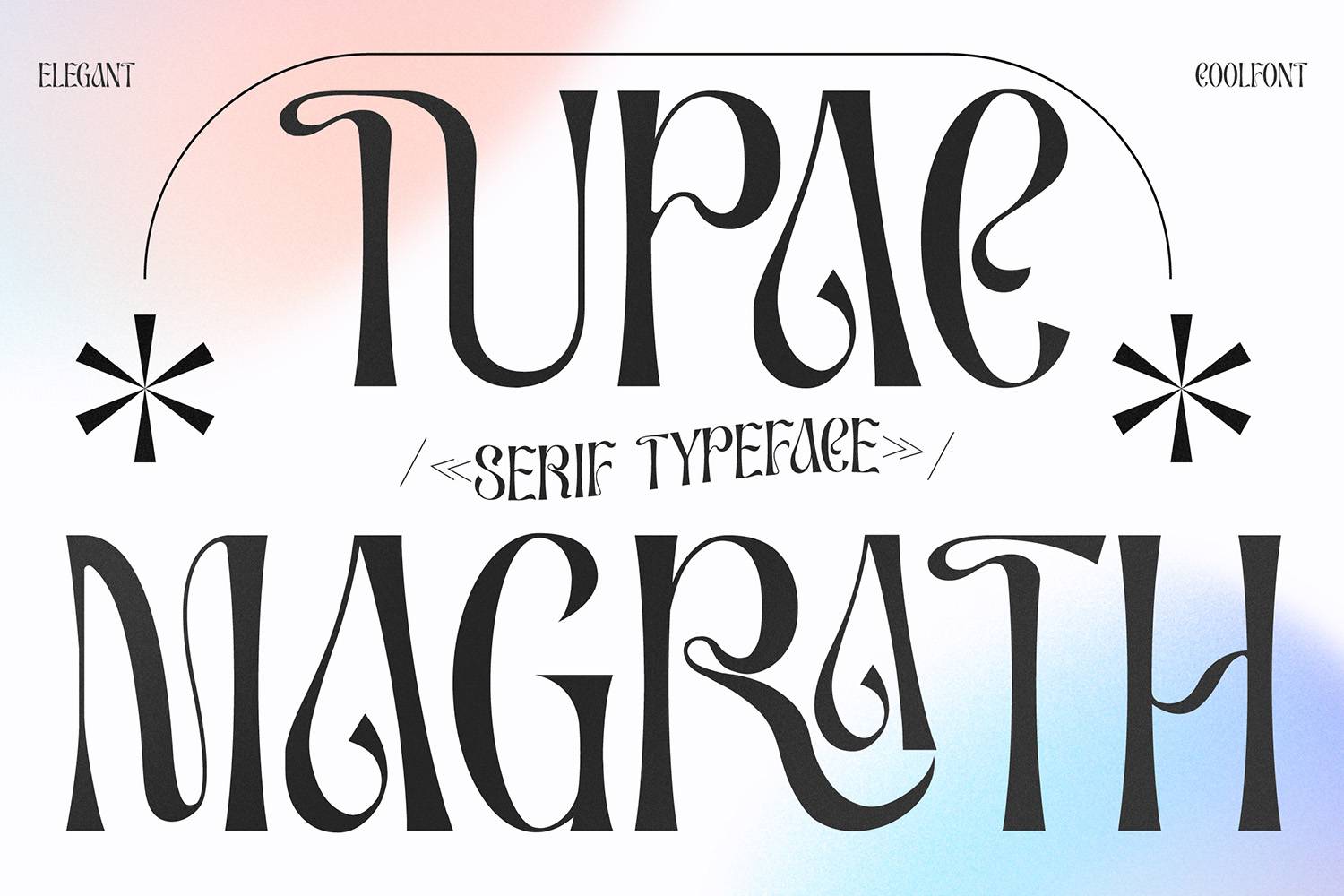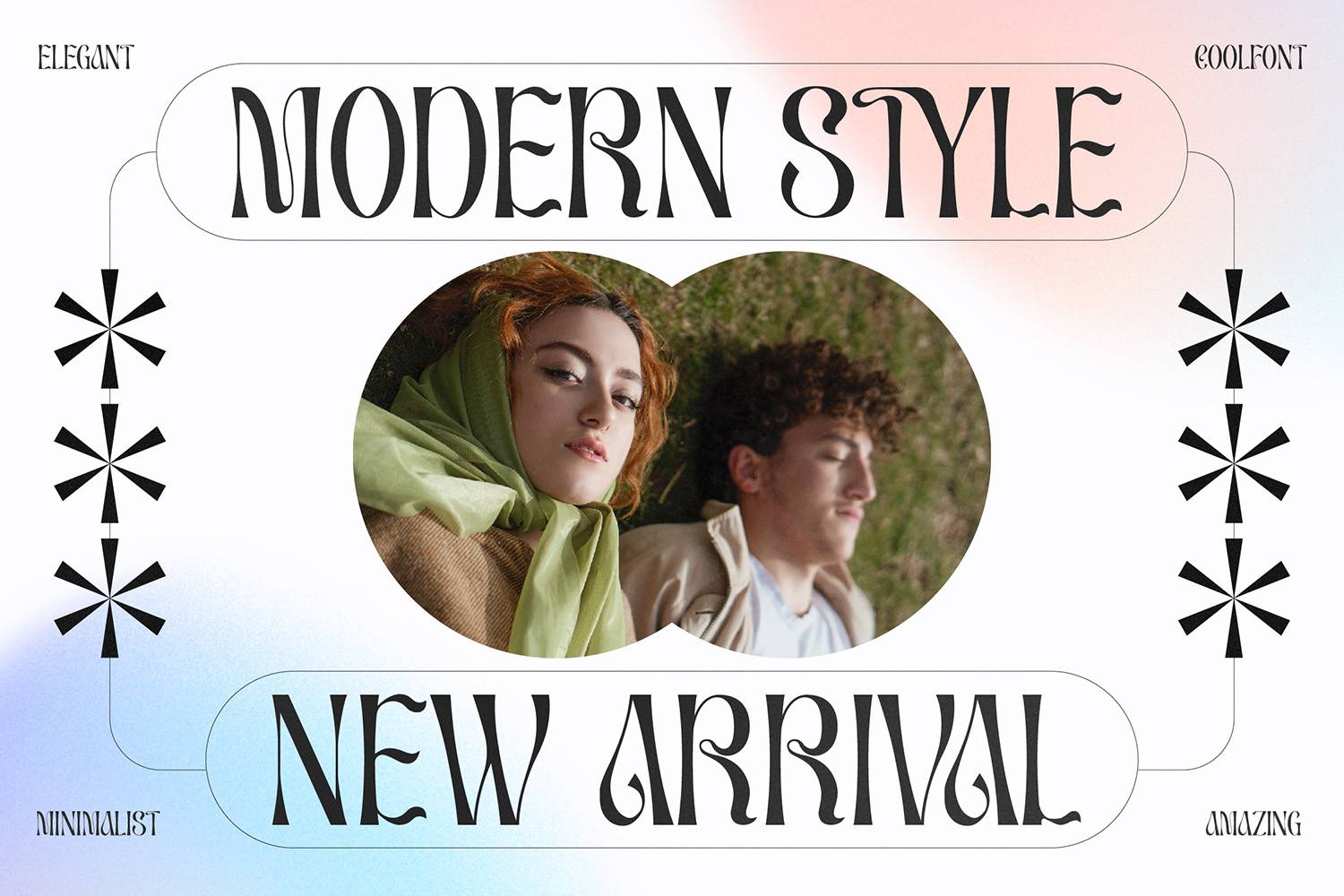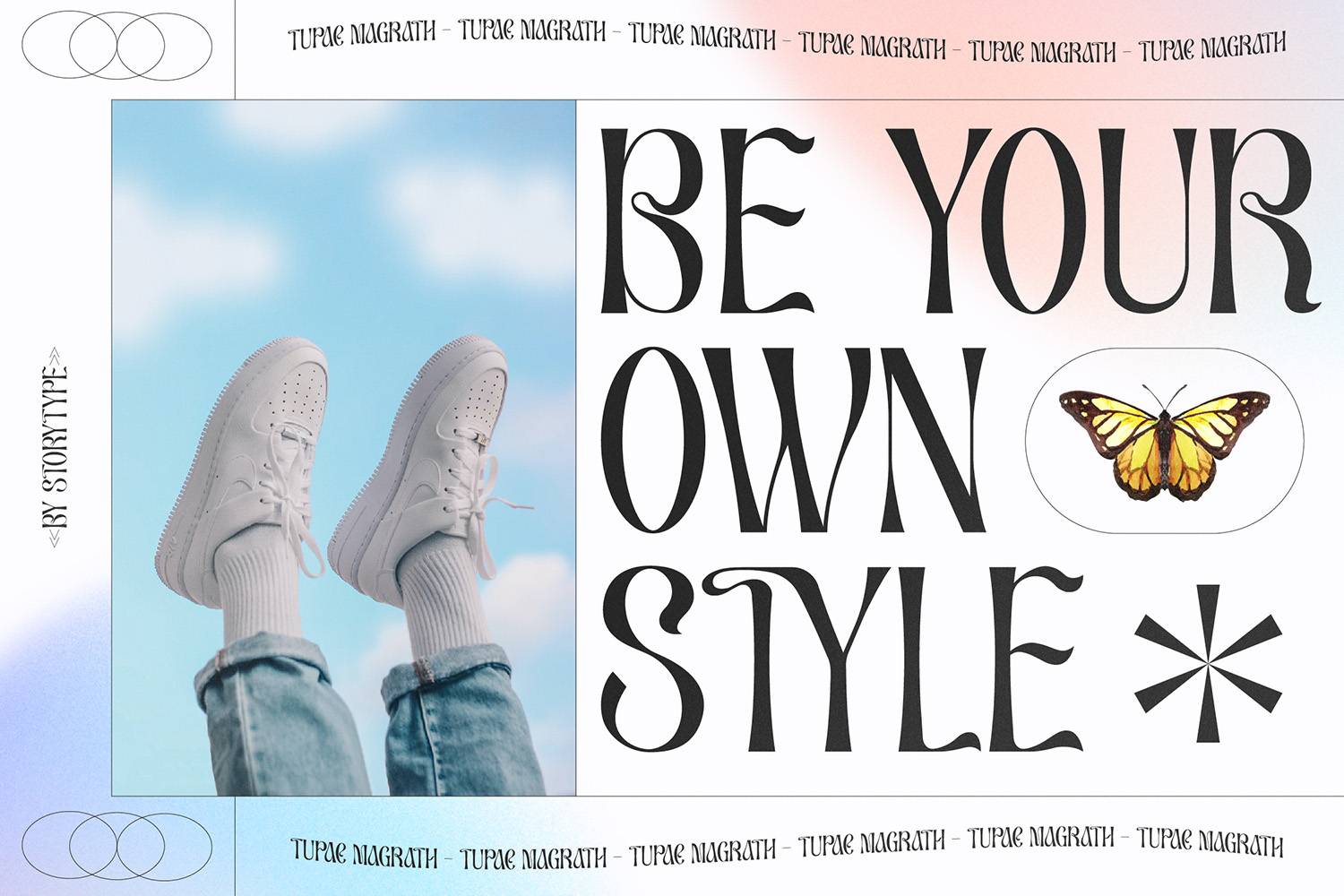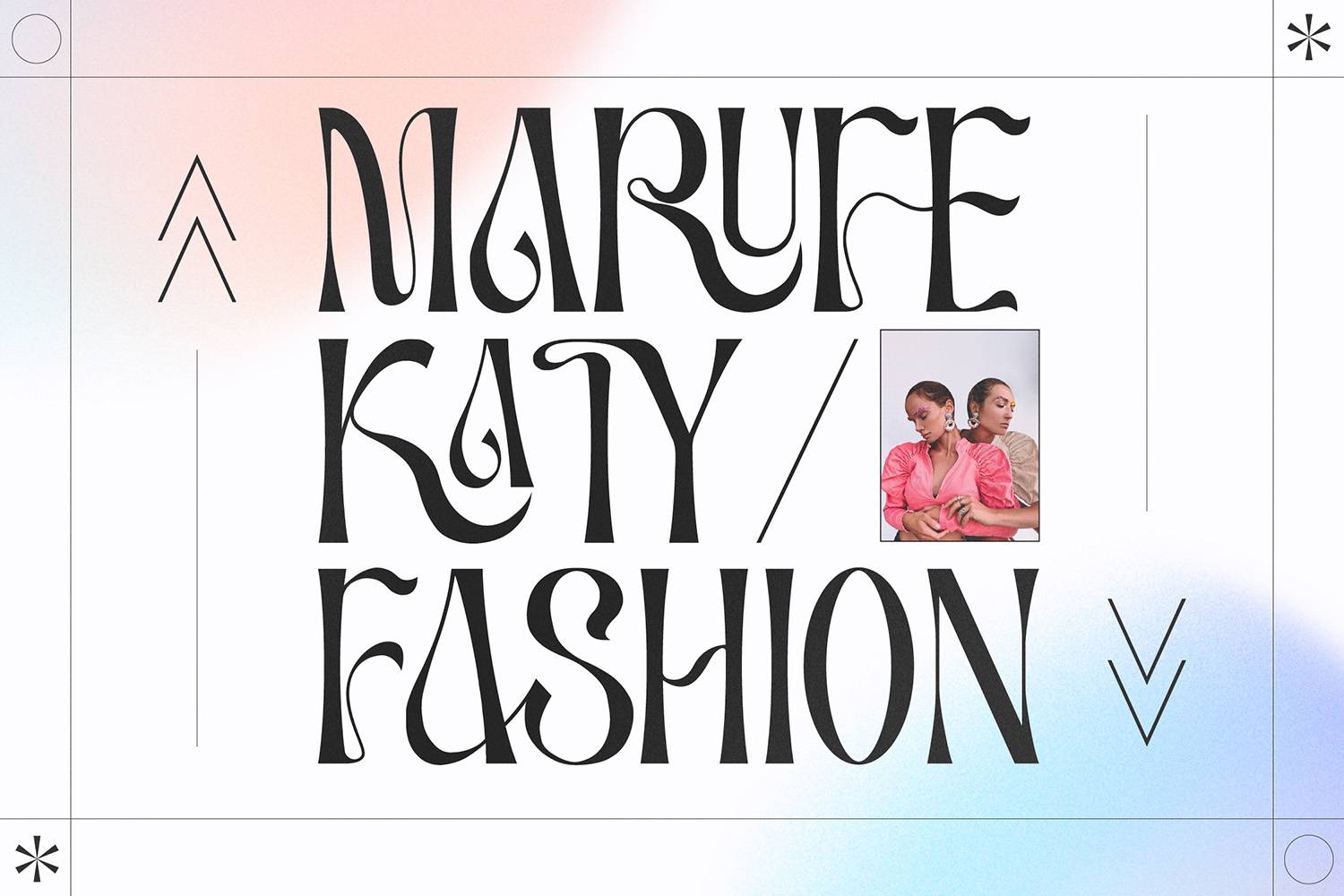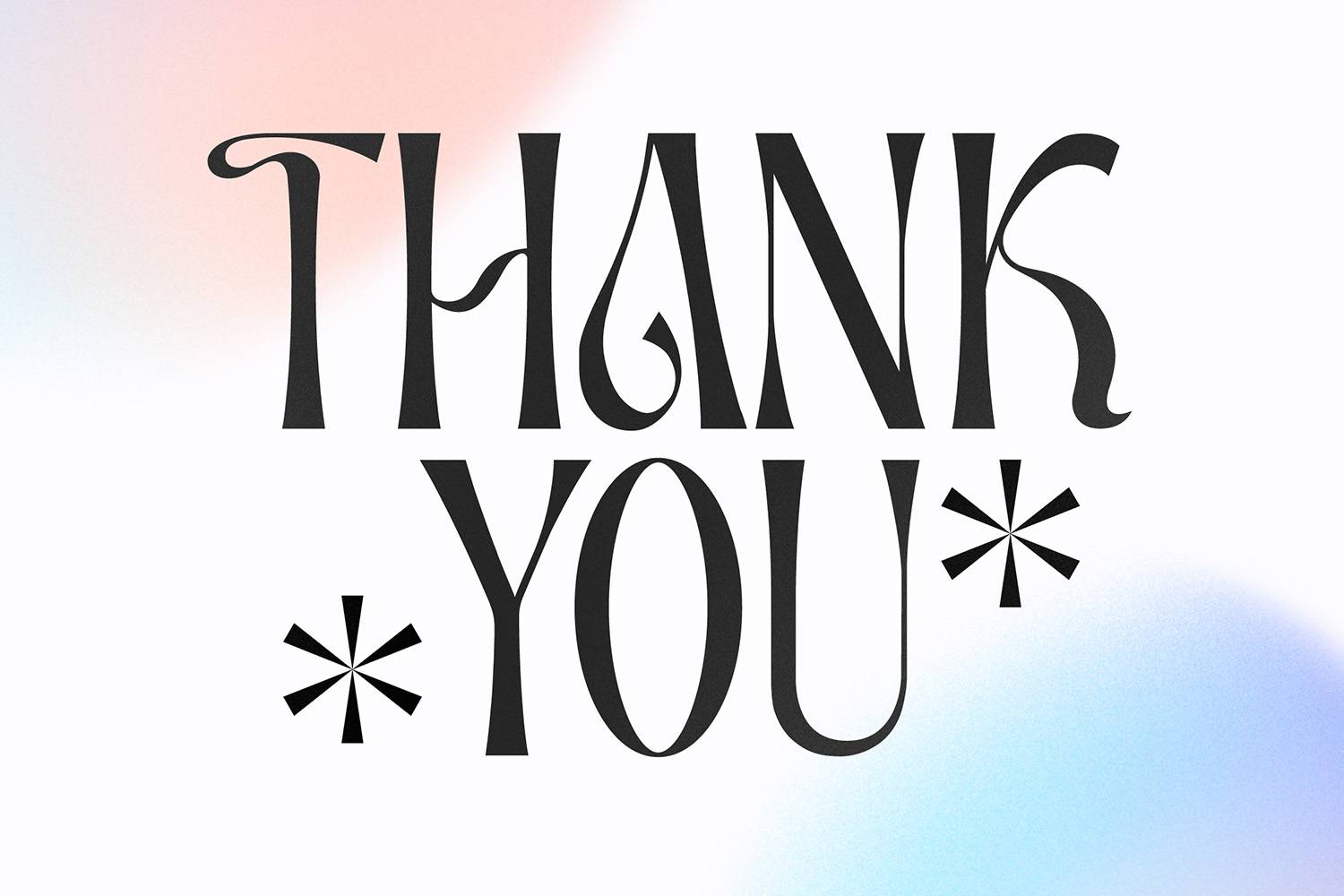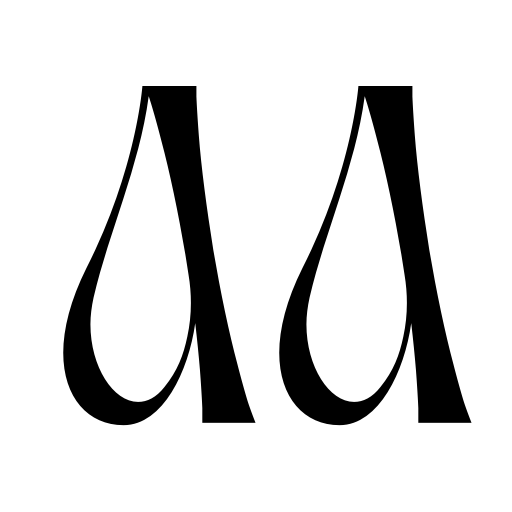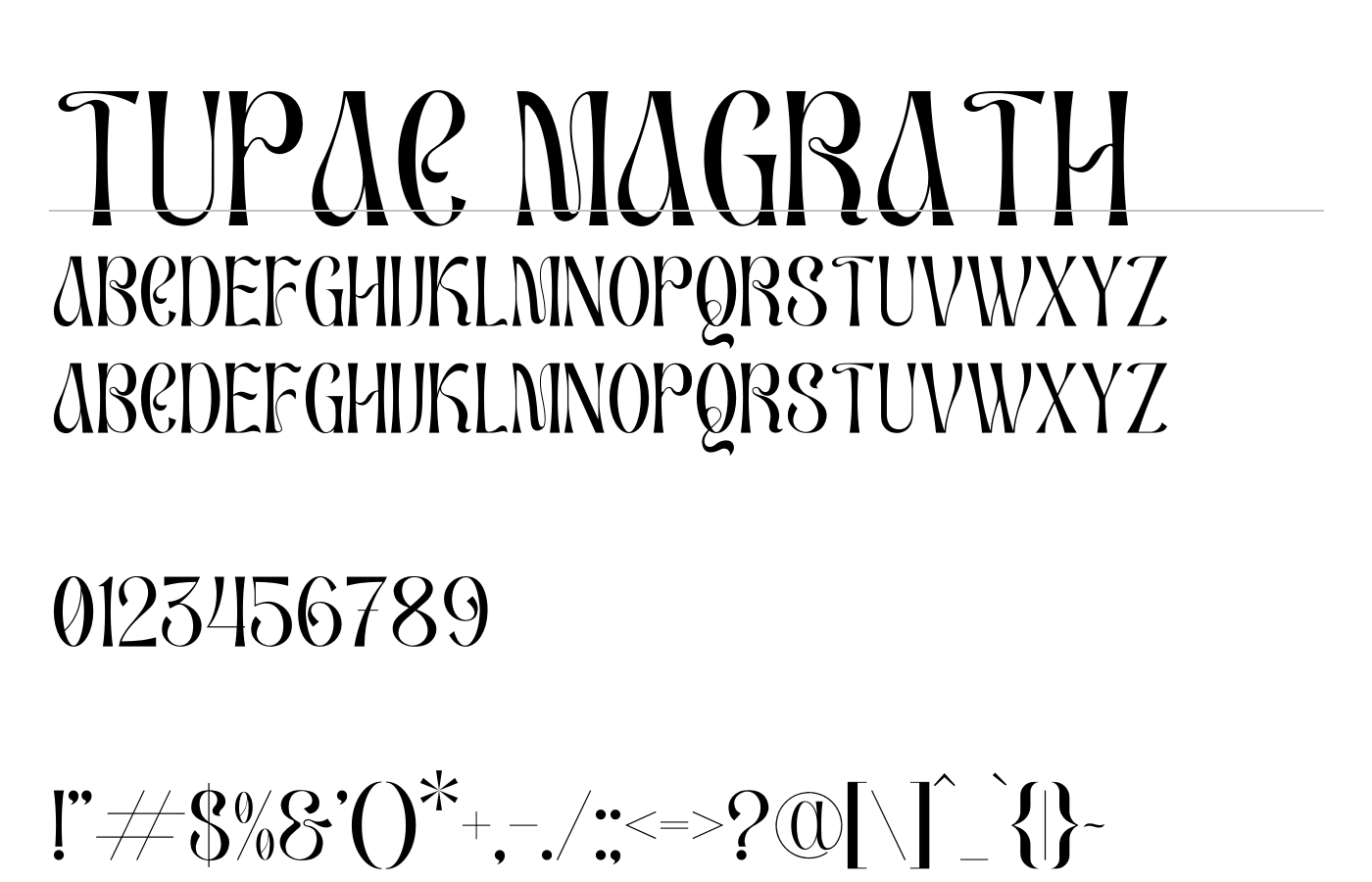
Tupac Magrath is an elegant serif font with a tall, narrow design and high contrast between thick and thin strokes, giving it a refined yet artistic feel. Its distinctive, slightly whimsical letterforms feature delicate curves and unique flourishes, making it ideal for creative headlines, fashion branding, and sophisticated editorial projects where a stylish and memorable impact is desired.
Tupac Magrath Font
About Tupac Magrath Font